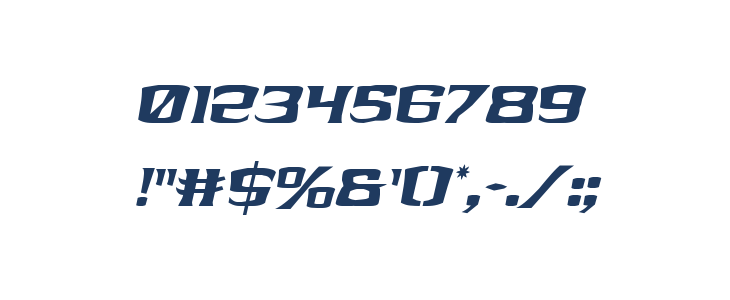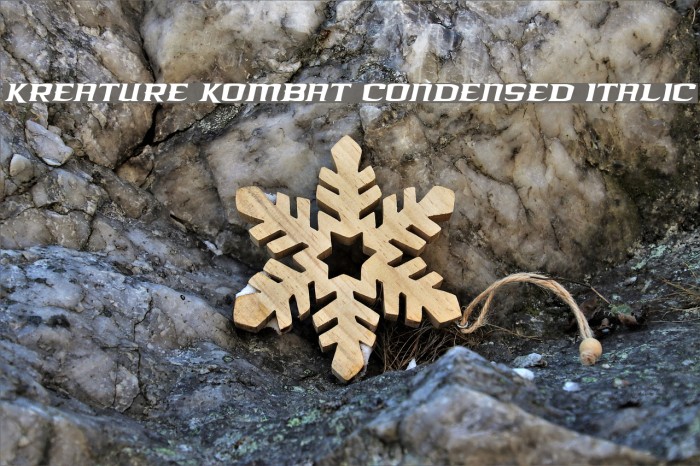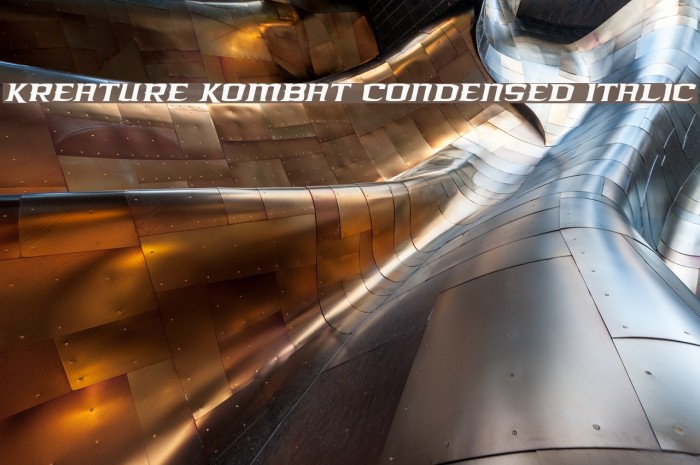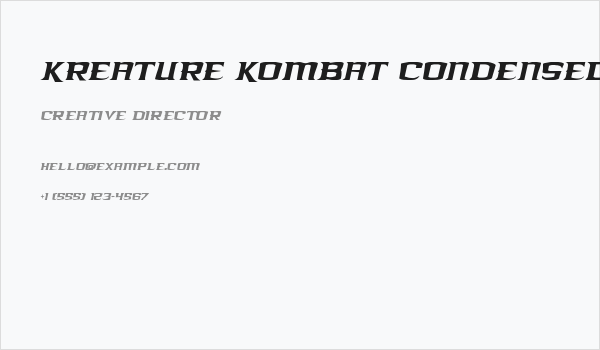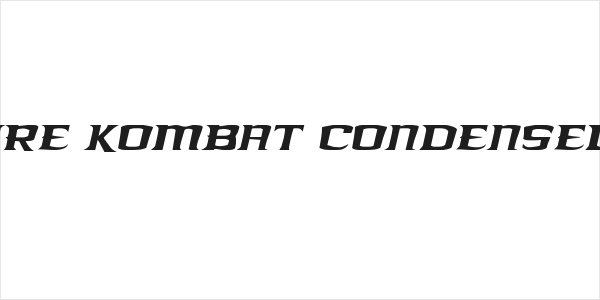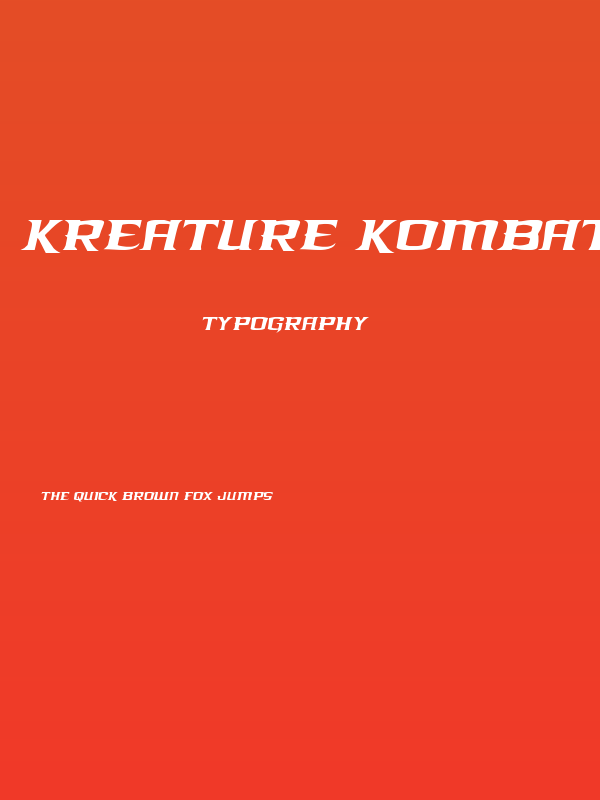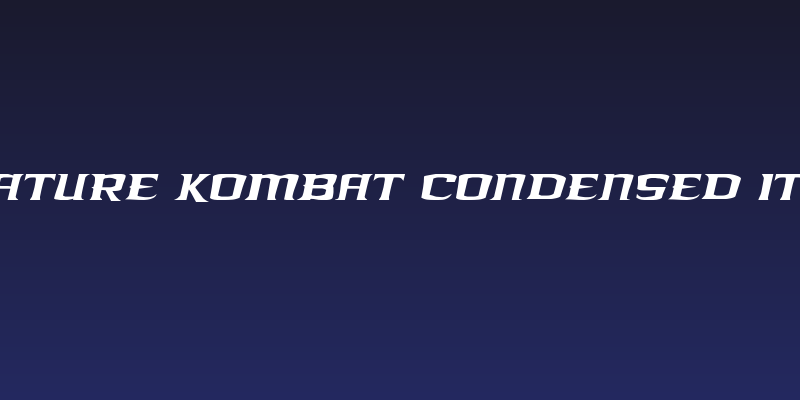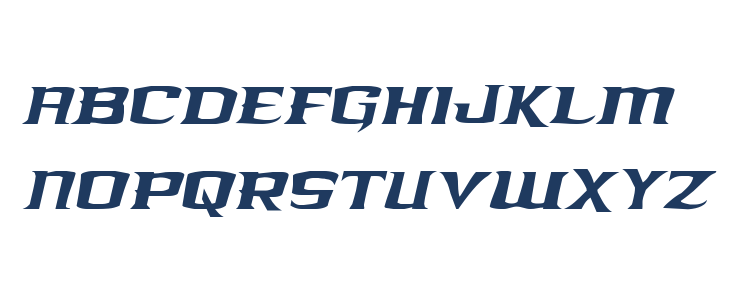
Kreature Kombat Condensed Italic Font
Kreature Kombat Condensed Italic Description
This font features a bold, dynamic style with sharp, angular edges and a condensed form. Its italicized slant adds a sense of motion and energy, making it ideal for attention-grabbing designs. The uppercase and lowercase letters maintain a consistent style, with a unique flair in the strokes that gives it a modern, edgy appearance. The numerals and special characters are designed to match the boldness and angularity of the letters, ensuring a cohesive look across all text elements. This font is well-suited for projects that require a strong visual impact.
| Proposed Projects | Ideal for video game titles, movie posters, sports branding, and dynamic advertising campaigns. |